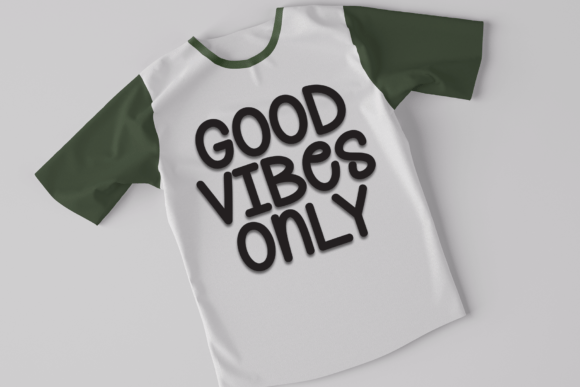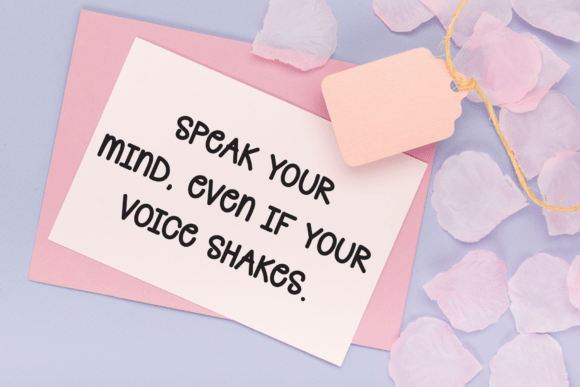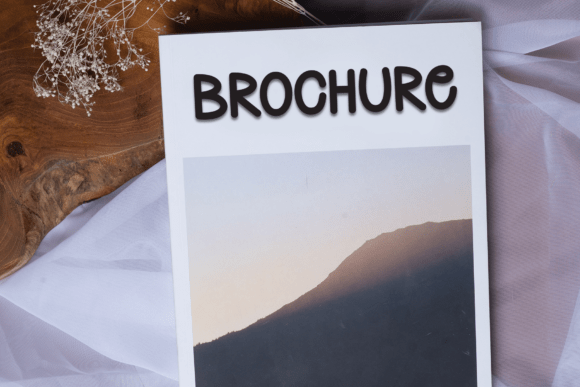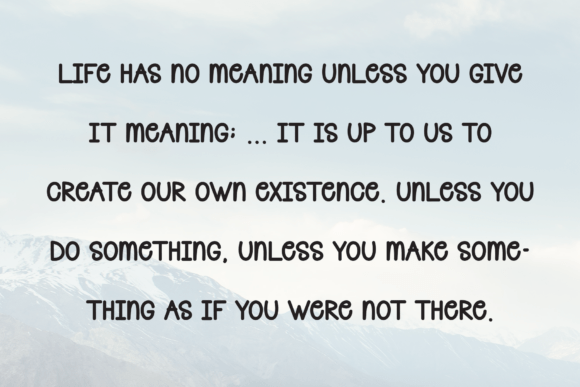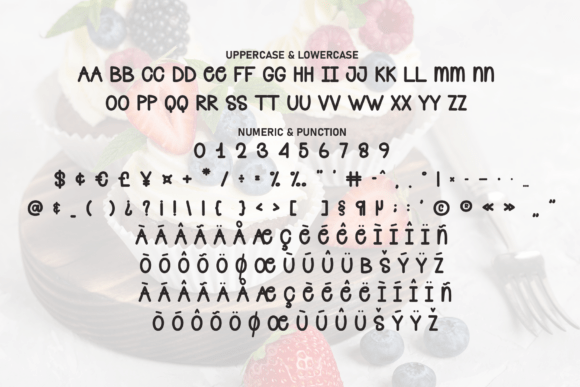
Discovering the Perfect Typography for Your Next Creative Project
Have you ever been working on a design project, pouring over different font options, and suddenly, the perfect one jumps out at you? That’s exactly what happened to many designers when they stumbled upon the Berries Cupcake Font. This casual and neat display font combines simplicity with a friendly, approachable vibe, making it an ideal choice for branding, headlines, packaging, and digital content.
What sets the Berries Cupcake Font apart is its ability to capture the essence of modern handwritten typography with a polished finish. Its clean lines, balanced letterforms, and subtle rounded edges make it a versatile choice for designers who want to add a warm and inviting touch to their work. With its crisp structure and adaptable style, this font delivers clarity and charm in equal measure, making it a valuable addition to any designer’s toolkit.
Berries Cupcake Font Key Features
- Font Family: Berries Cupcake is a unique, handwritten font designed for creative projects.
- Character Set: Includes uppercase and lowercase letters, numbers, and punctuation marks for comprehensive use.
- Unique Characteristics: Features a playful, whimsical feel with varied line widths and organic shapes, making it perfect for creative and food-related projects.
Designer Review: Berries Cupcake Font
I recently had the chance to work with the Berries Cupcake Font, and I must say, it’s a delightful addition to any project. ✨ The whimsical design and playful feel make it perfect for creating a lighthearted and approachable atmosphere in your designs.
- ✨ Unique and quirky design: The font’s irregular shapes and uneven spacing create a charming, handmade feel that’s sure to stand out.
- ✨ Great for food and dessert-related designs: The font’s theme and design make it perfect for creating menus, advertisements, and other materials related to food and desserts.
- ✨ Easy to read: Despite its whimsical design, the font is still easy to read, making it a great choice for text-heavy projects.
However, there are some limitations:
- ⚠️ Limited character set: The font only includes uppercase and lowercase letters, as well as a few punctuation marks. This can make it difficult to use for projects that require a wide range of characters.
- ⚠️ Not suitable for formal designs: The font’s playful design may not be suitable for formal or professional projects, as it may come across as too casual or immature.
Overall, I think the Berries Cupcake Font is a great choice for designers looking to add a touch of whimsy to their projects. While it may have some limitations, its unique design and playful feel make it a great addition to any design arsenal.
Use Berries Cupcake Font for:
– Food-related designs (e.g. recipe books, food blogs)
– Kid-friendly designs (e.g. children’s books, nursery decor)
– Whimsical and playful designs (e.g. invitations, party decorations)
For best results, use the font in combination with bright and pastel colors to create a cohesive and visually appealing design.